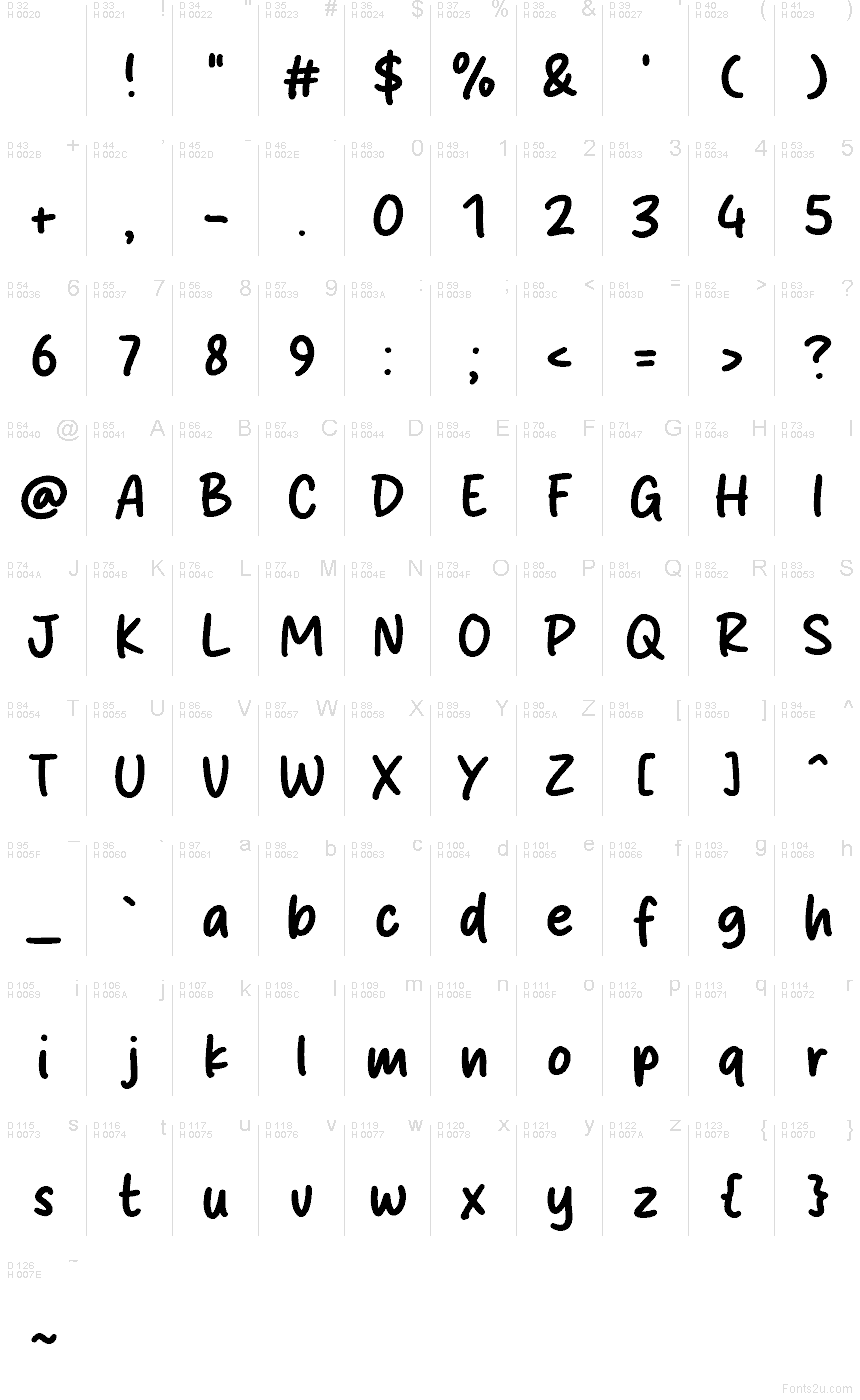
Melty Cake
Melty Cake font by MJType is a free handwritten font that feels like frosting piped straight onto the page. Thick, inky strokes and rounded corners give it a soft, gooey look, while the casual rhythm keeps it fun and approachable instead of messy. It’s playful without being chaotic, making it easy to read even at larger sizes where its bubbly personality really shows.
Using Melty Cake, you can bring a warm, homemade charm to bakery logos, kids’ birthday invitations, dessert packaging, recipe cards, social media graphics, and cute sticker designs. This free font shines on colorful backgrounds and works beautifully when paired with a simple sans serif for supporting text, letting the title feel like it’s just come out of the oven.